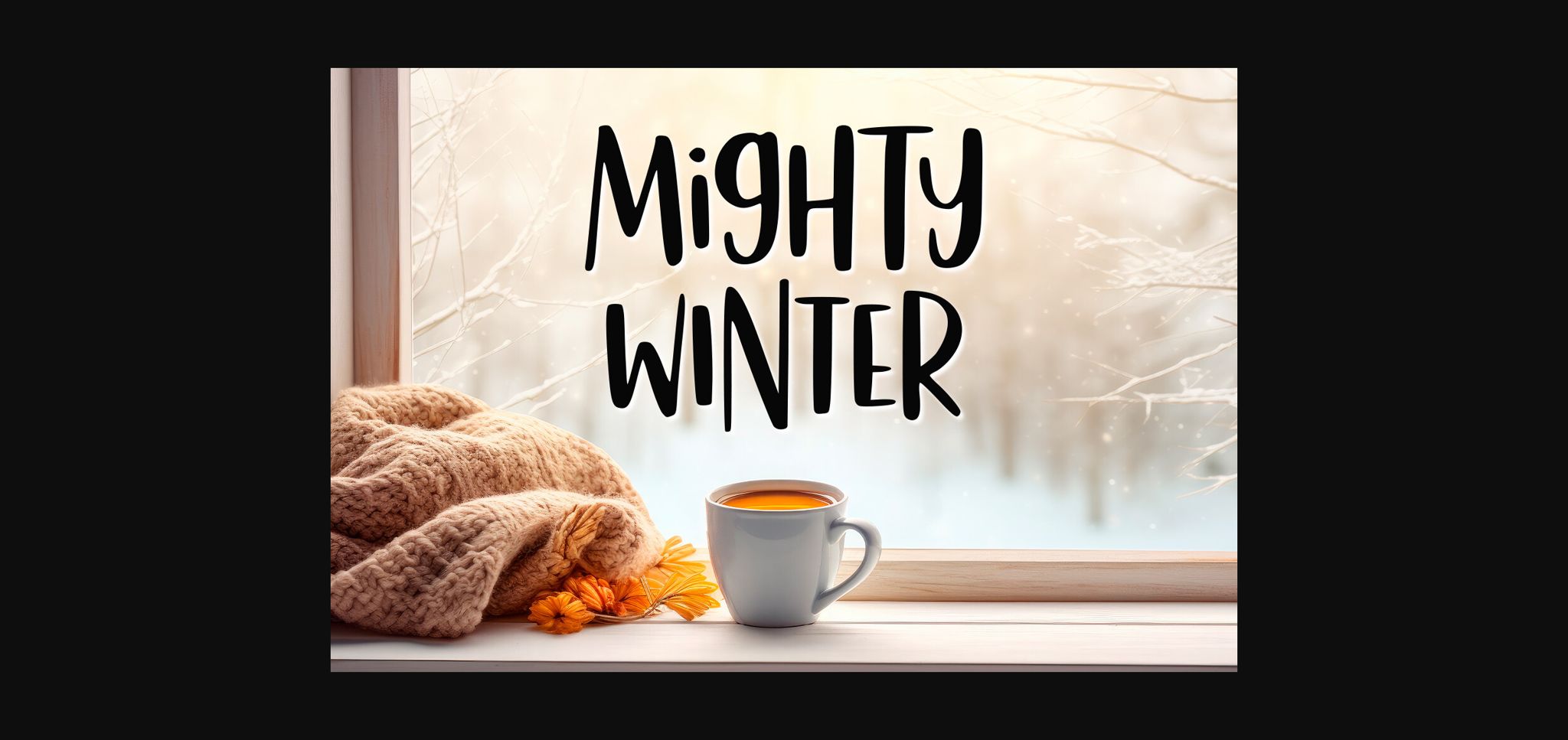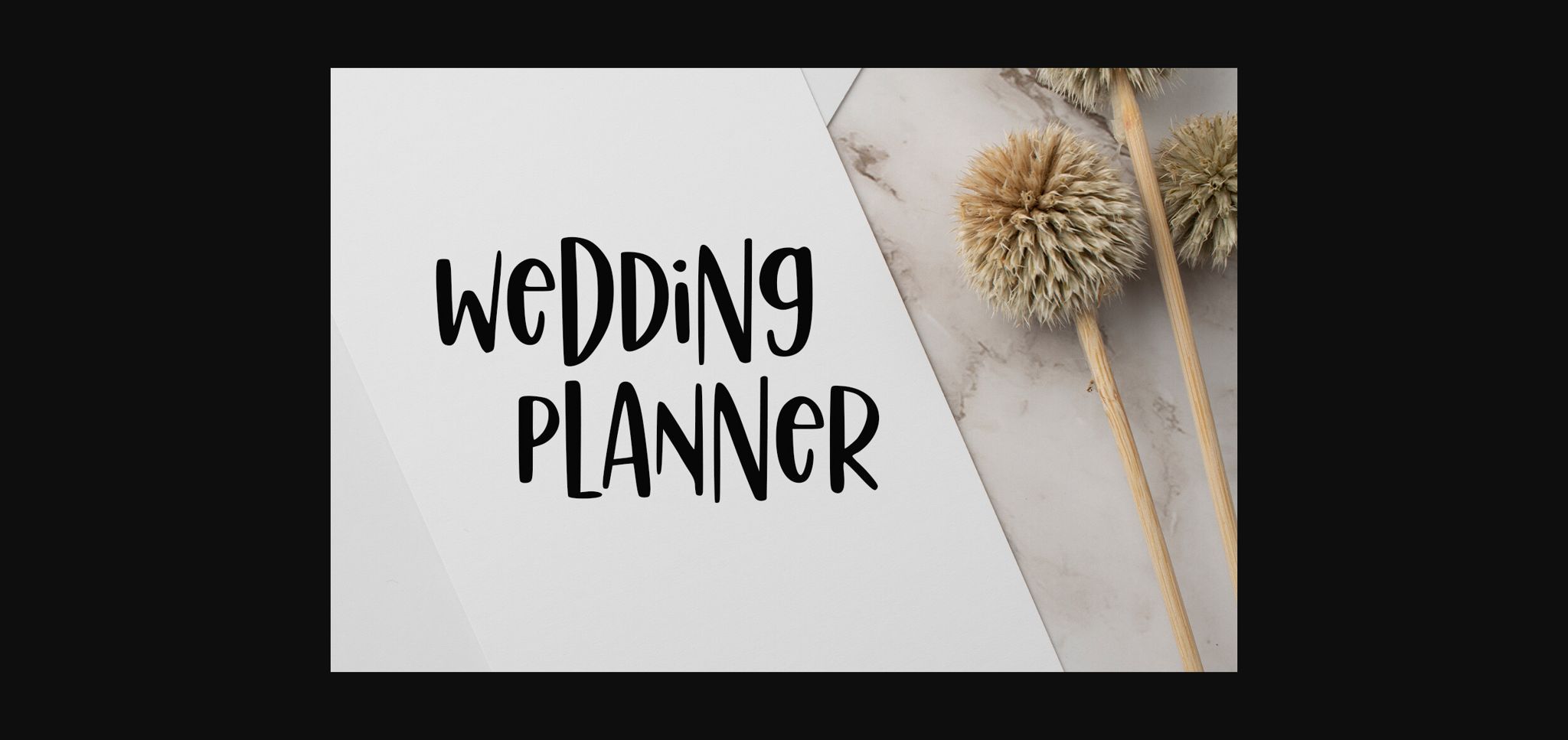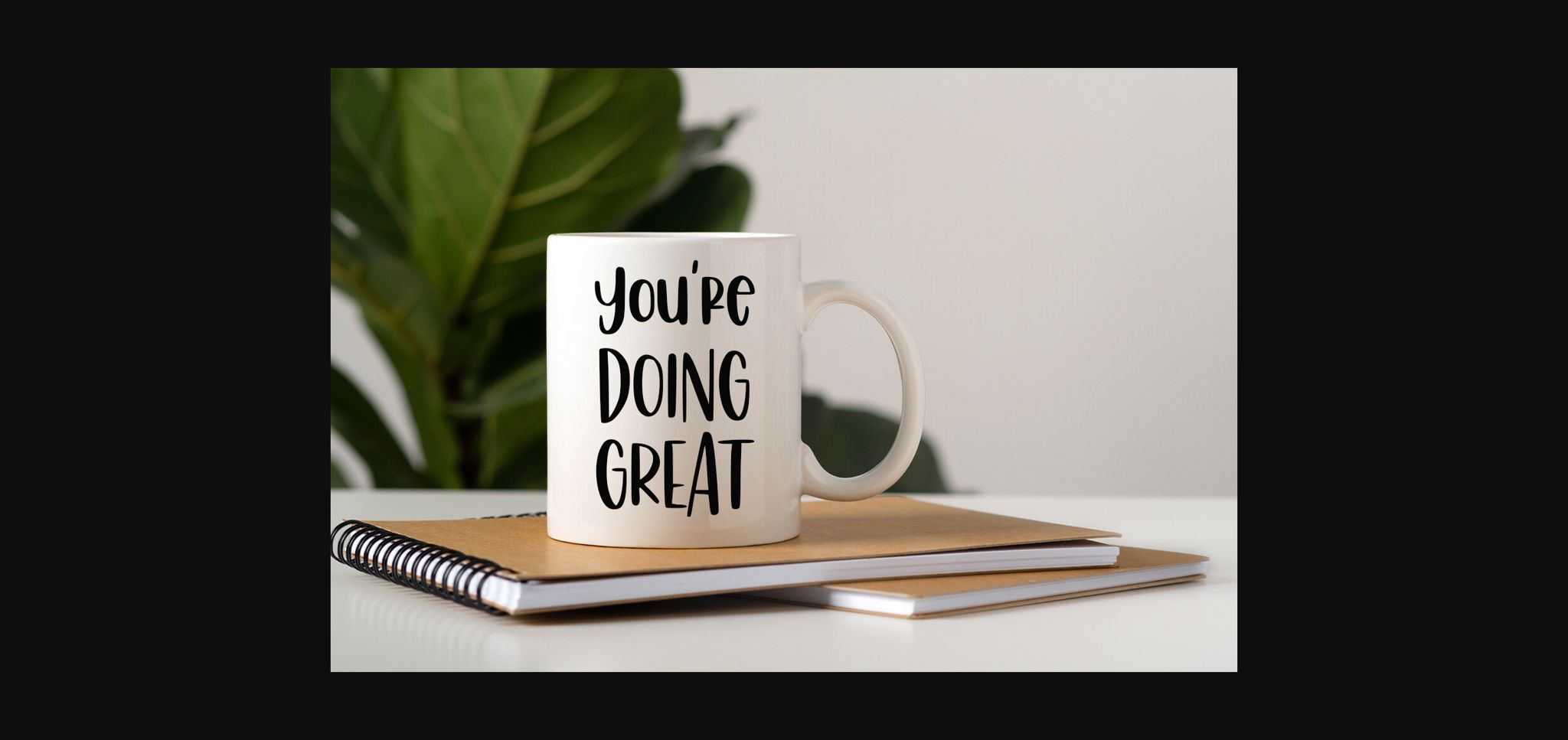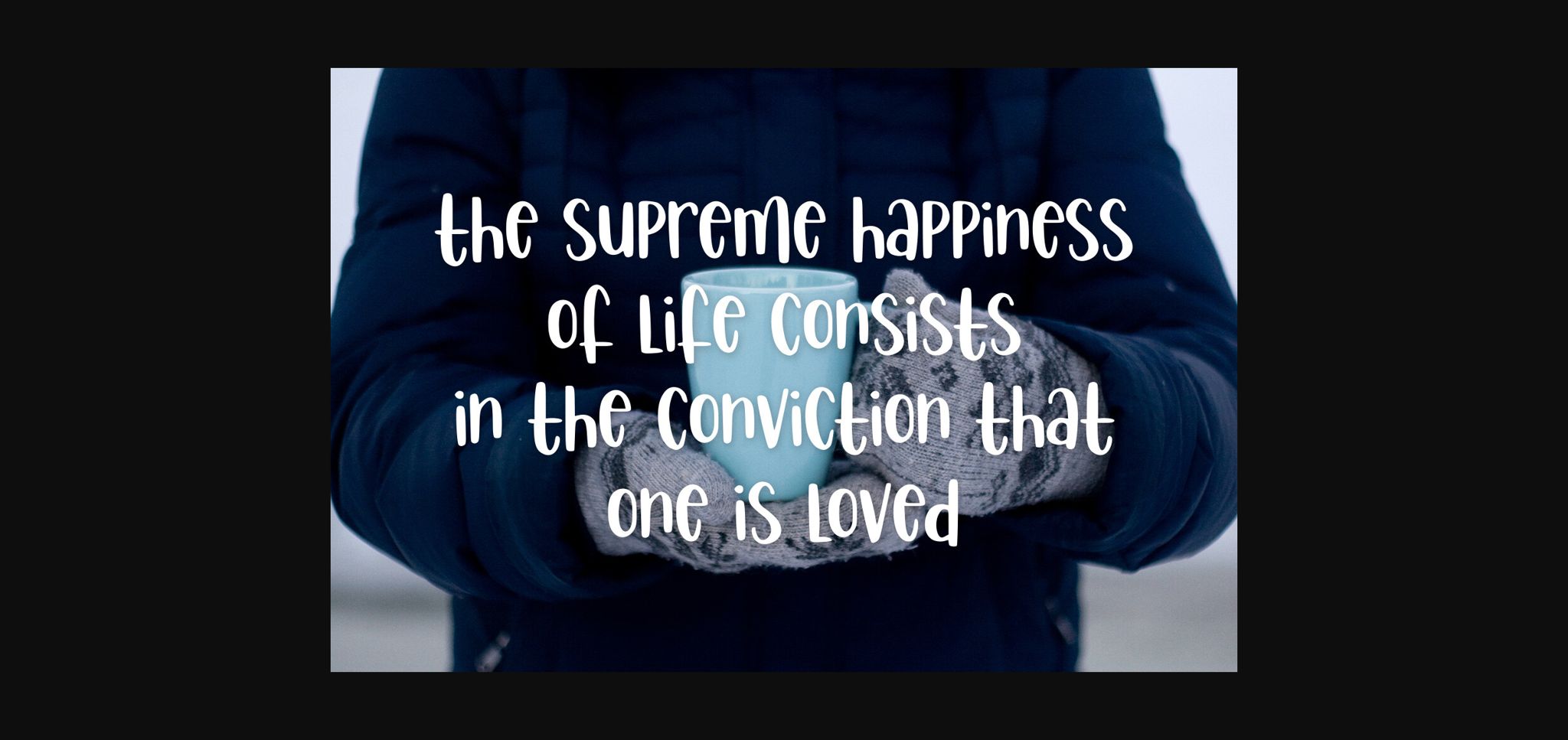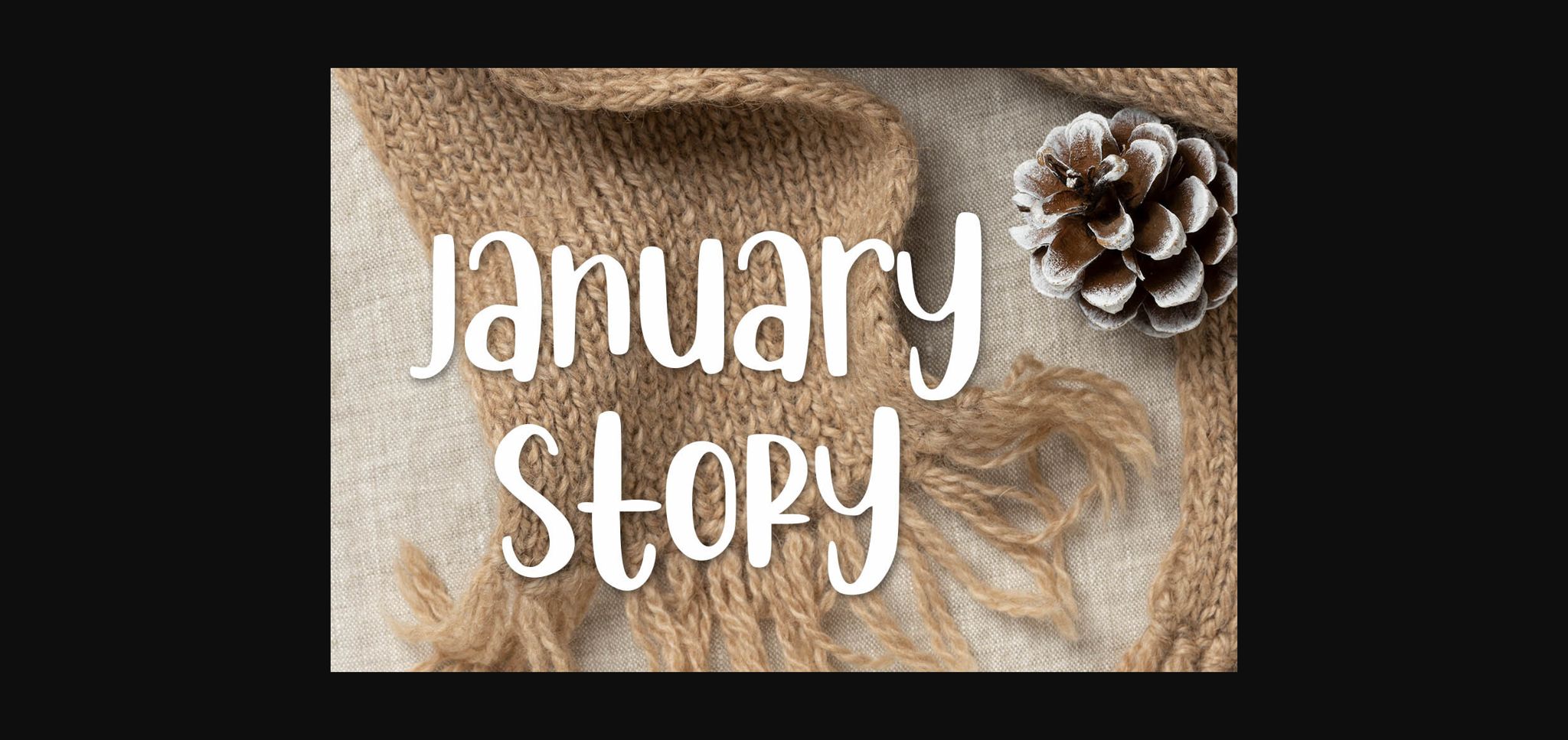
Mighty Winter Font
About Mighty Winter Font
Mighty Winter is a cute and friendly sans-serif font. It is great for quotes, logos, t-shirt designs, tote bag designs, crafts, cards, banners, social media, and more.